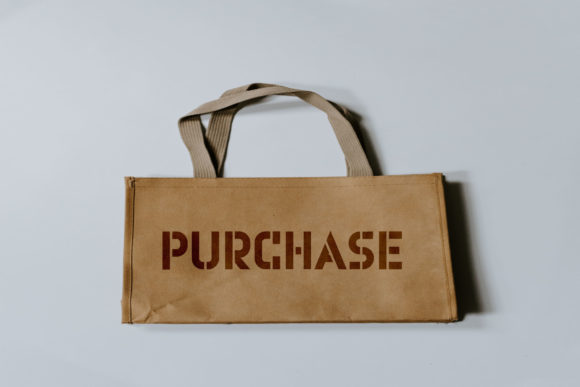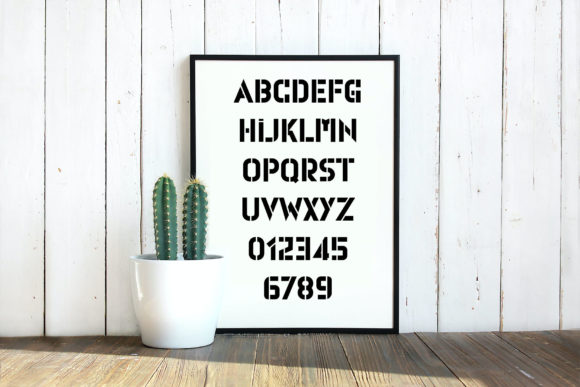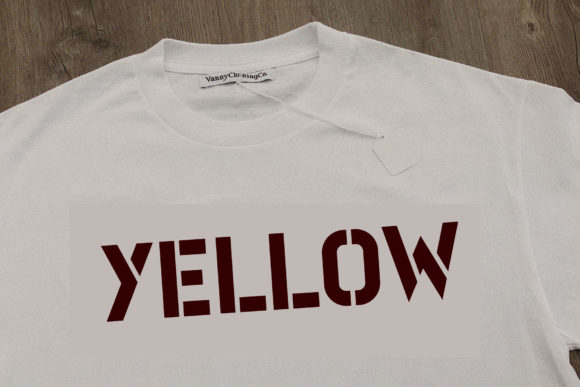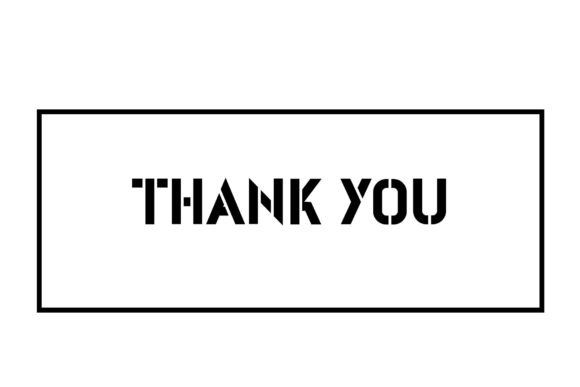
Introduction to Rival Font
Have you ever been working on a design project, pouring over color palettes and layouts, only to feel like something is missing? A spark of creativity that just can’t be captured? For designers, this feeling is all too familiar. It’s the moment when you realize your design needs a bold statement, a geometric touch that sets it apart from the rest.
Enter the Rival Font, a cool and bold lettered display font that’s about to become your new go-to design resource. With its high quality, geometric design, this font is perfect for adding a unique touch to your next creative project. Whether you’re designing a website, business card, or anything in between, the Rival Font is sure to impress.
Rival Font
- High-quality design resource with a transparent background, ideal for creative projects
- Unique characteristics include bold and italic styles, perfect for adding emphasis to your text
- Supports a wide range of languages, making it a versatile design resource for international projects
Honest Review: Rival Font
Here are some things that work well: ✨
- High-quality glyphs – The font’s letters and symbols are crisp and well-formed, making it perfect for a wide range of creative projects.
- Transparent background – This feature allows for seamless integration with various design elements and backgrounds.
- Flexibility – Rival Font is suitable for both print and digital designs, making it a valuable resource for any designer.
However, there are a few limitations: ⚠️
- Limited character set – While the font’s glyphs are high-quality, the character set is somewhat limited, which may not be ideal for more complex designs.
- Not suitable for bold text – The font’s design doesn’t lend itself well to bold text, which may be a drawback for some designers.
Overall, I’m impressed with the Rival Font’s performance, and I think it’s a valuable resource for any designer working on a creative project. While it may have some limitations, its strengths make it a great addition to any design toolkit.
Rival Font
Rival Font is a versatile design resource ideal for creative projects. With its high-quality design and transparent background, it’s perfect for various applications.
To get the most out of Rival Font, experiment with different font sizes, colors, and styles to create a unique design. Use it in conjunction with other design elements to add depth and visual interest to your project.
Rival Font is ideal for various creative projects, including logos, brochures, posters, and social media graphics. Its versatility and high-quality design make it a popular choice among designers and creatives.